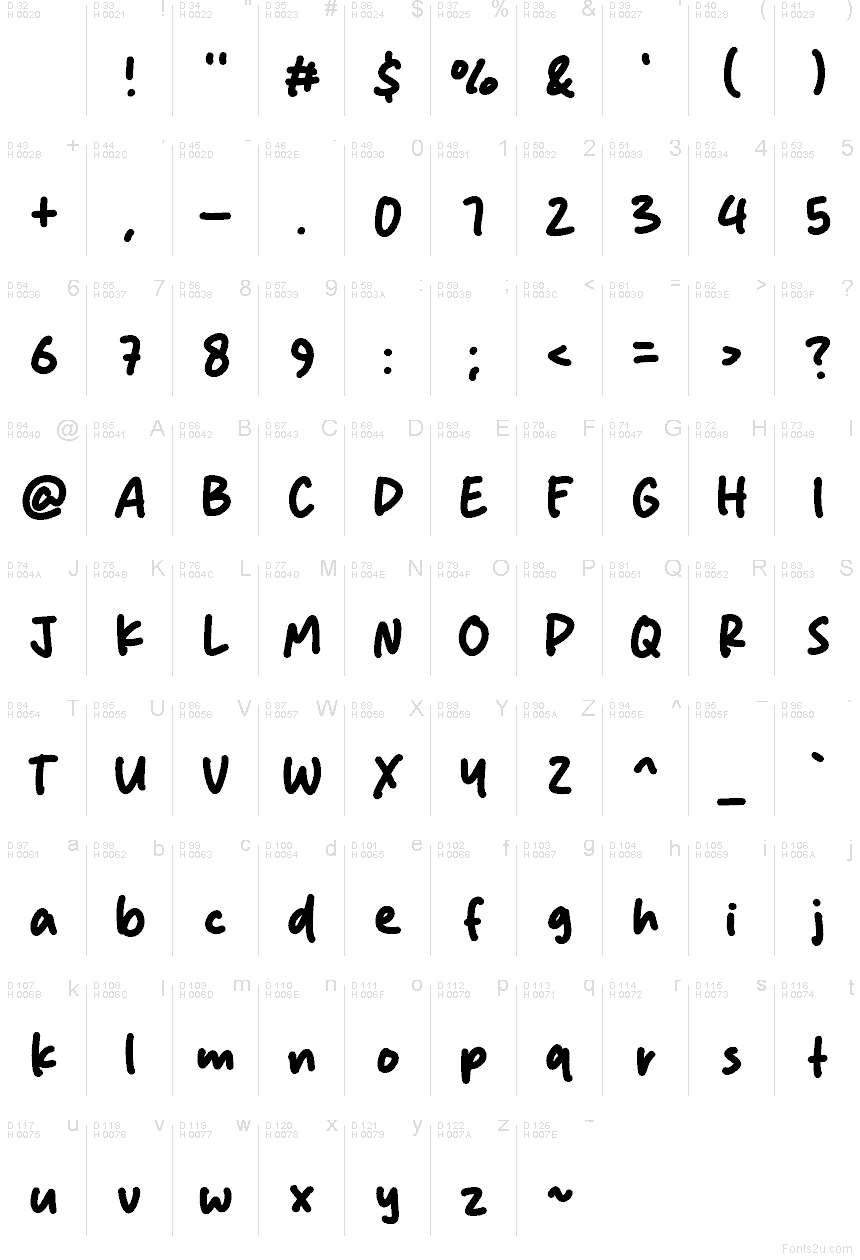
Pinky Smush
Pinky Smush font by MJType is a free handwritten font that looks like it’s been drawn with a juicy marker on glossy paper. Chunky strokes, soft corners, and a slight bounce in the baseline give it a squishy, upbeat feel that’s still easy to read. The letters hug each other closely, creating a warm, friendly texture that feels personal without getting messy or chaotic.
Using Pinky Smush, you can bring playful energy to kids’ book covers, birthday invitations, classroom printables, stickers, casual logos, packaging for sweets, and social media graphics. This free font shines when used big and bold, where its inky curves and tight rhythm can really show. For projects that need extra structure, pair Pinky Smush with a clean geometric sans-serif in smaller text to keep everything readable and well-balanced.